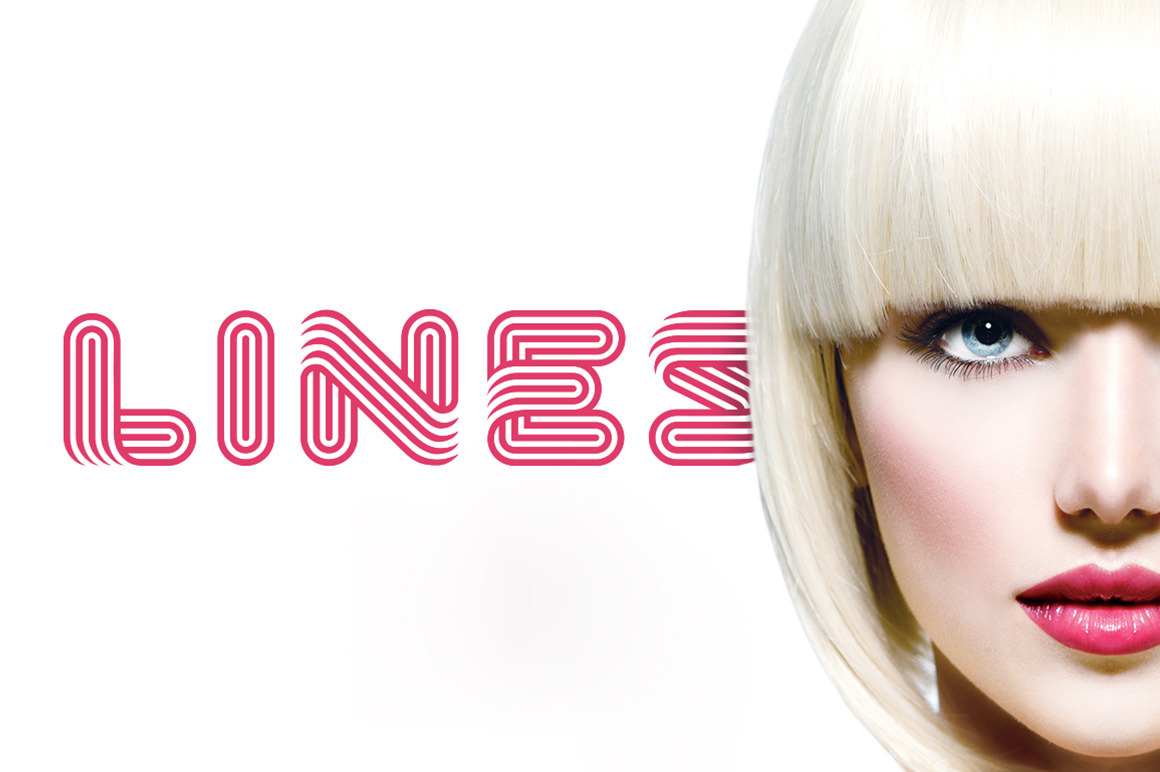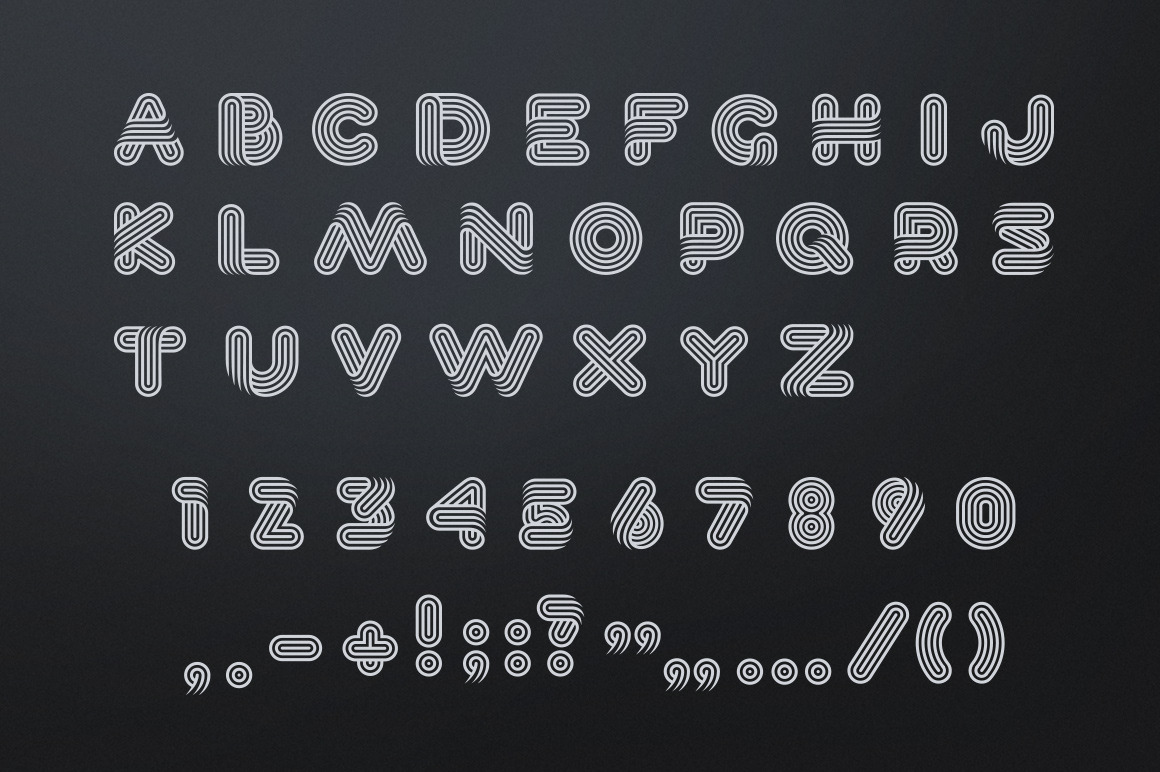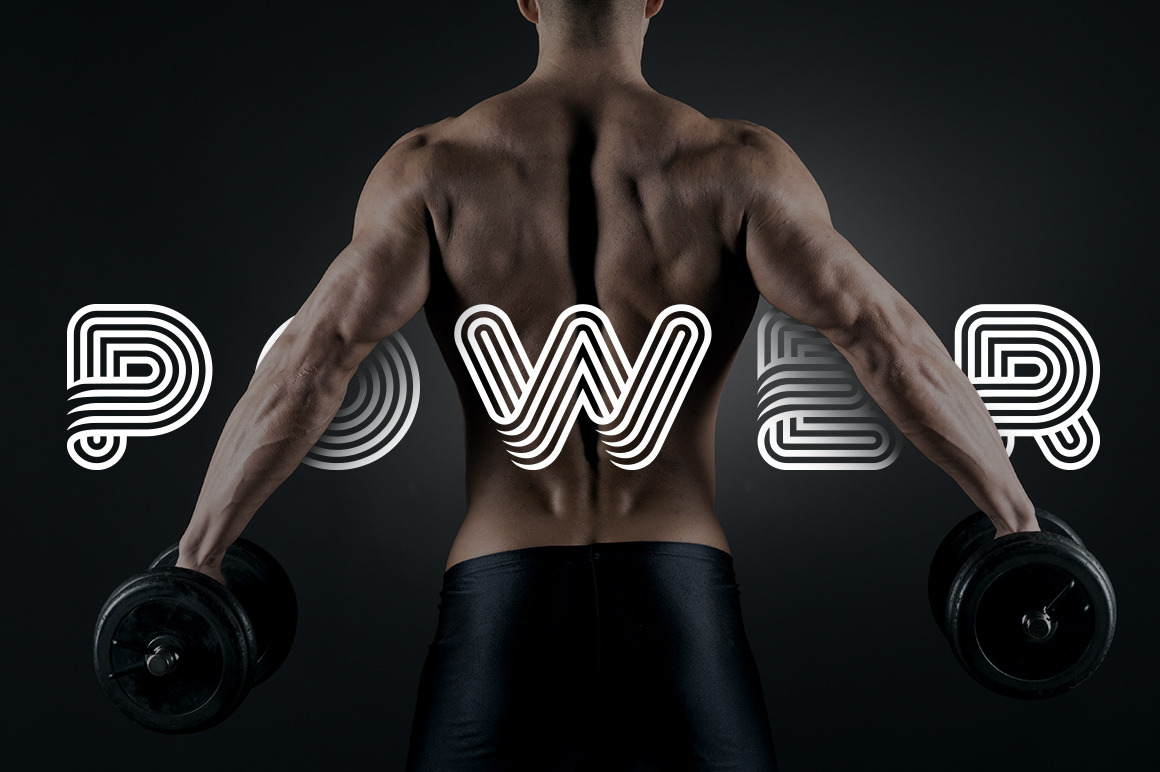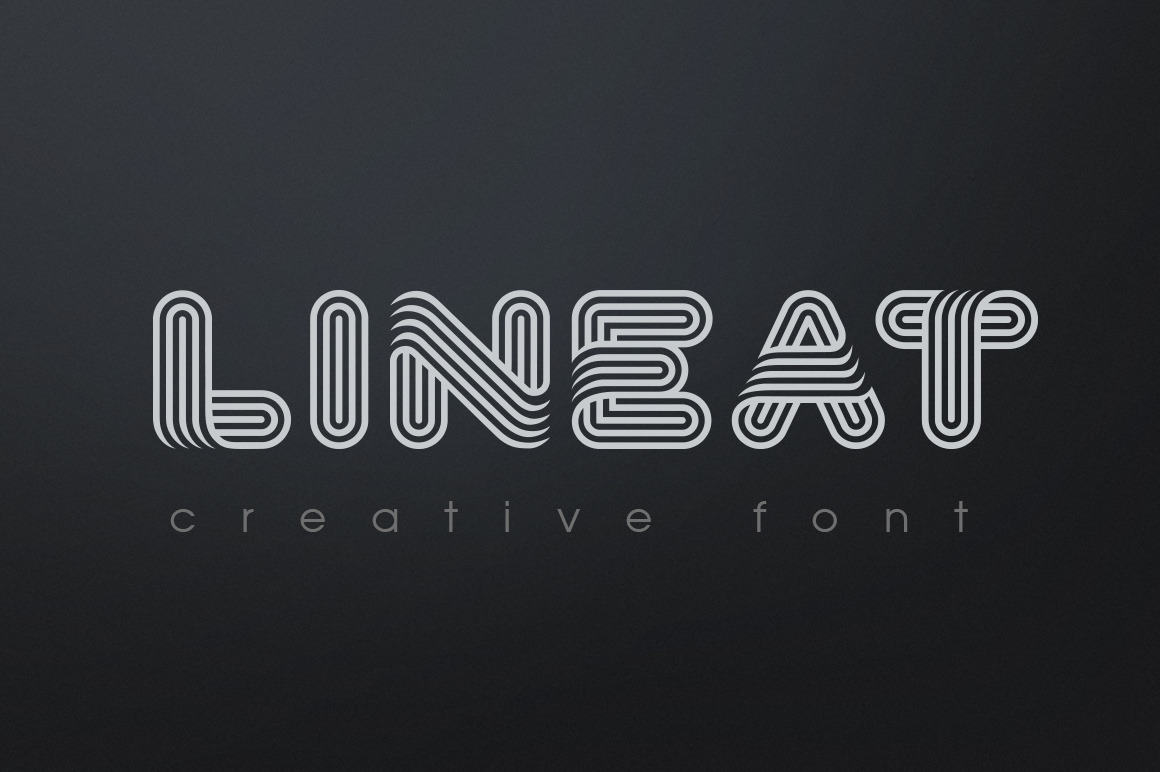
Lineat Font by Sentavio | Creative Market
Lineat is stylish innovative creative font can be used as logo design and branding, titles & headers, posters & banners in such areas as fashion, high-tech, internet & computers, business innovations, sport & entertainment etc. - File includes: ttf, otf, eot, svg, woff, woff2 | Lineat font | Sentavio